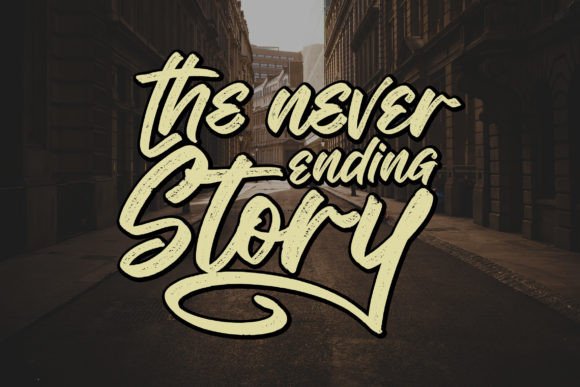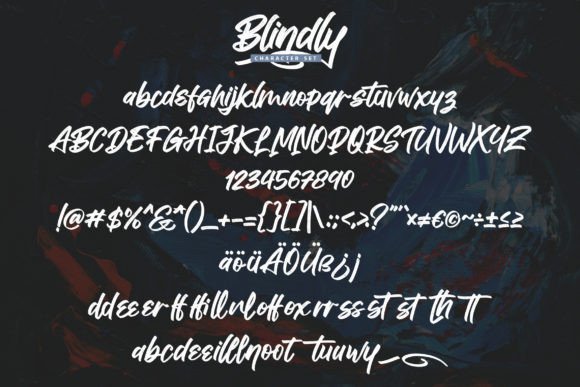
The Designer’s Delight: Blindly Font
First Impressions: A Bold and Assertive Font
Blindly Font is a bold and assertive handwritten brush font that maintains its classy calligraphic influences while feeling contemporary and fresh. It’s perfect for designers, crafters, and creative hobbyists looking to elevate their projects to the highest levels. With its unique blend of traditional and modern elements, Blindly Font is sure to make a statement in any design.
What I Love About Blindly Font ✨
- 💥 Bold and Assertive: Blindly Font makes a statement with its confident and bold strokes.
- ✅ Classy Calligraphic Influences: The font’s calligraphic roots give it a touch of elegance and sophistication.
- 🌟 Contemporary and Fresh: Despite its classic influences, Blindly Font feels modern and on-trend.
- 🎨 Versatile: This font can be used for a wide range of projects, from branding and advertising to packaging and more.
- ⚠️ Legibility at Small Sizes: Blindly Font can be a bit tricky to read at very small sizes, so it’s best used at larger sizes or for headlines.
- 🤔 Limited Use for Body Text: Due to its bold and decorative nature, Blindly Font might not be the best choice for lengthy body text.
The Story Behind Blindly Font
Blindly Font was designed with the intention of creating a bold, yet elegant font that would make a statement in any design. The designer aimed to blend traditional calligraphic influences with modern elements, resulting in a unique and versatile font. 💫
| What is Blindly Font best used for? | Blindly Font is perfect for headlines, titles, and short text elements where you want to make a bold statement. |
| Is Blindly Font suitable for body text? | No, Blindly Font is not ideal for lengthy body text due to its bold and decorative nature. |
| Does Blindly Font support OpenType features? | Yes, Blindly Font supports OpenType features, such as glyphs and stylistic alternates, which can add more personality to your text. |